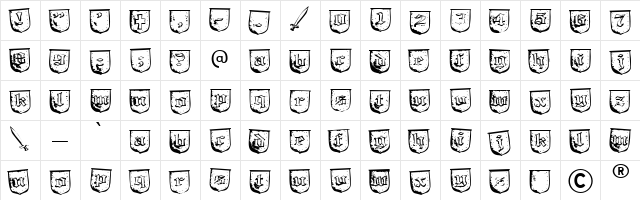
Troll Bait Regular
Design Context for Troll Bait Typeface
Troll Bait is a composed and adaptable typeface that performs quietly and consistently across a wide range of design contexts.